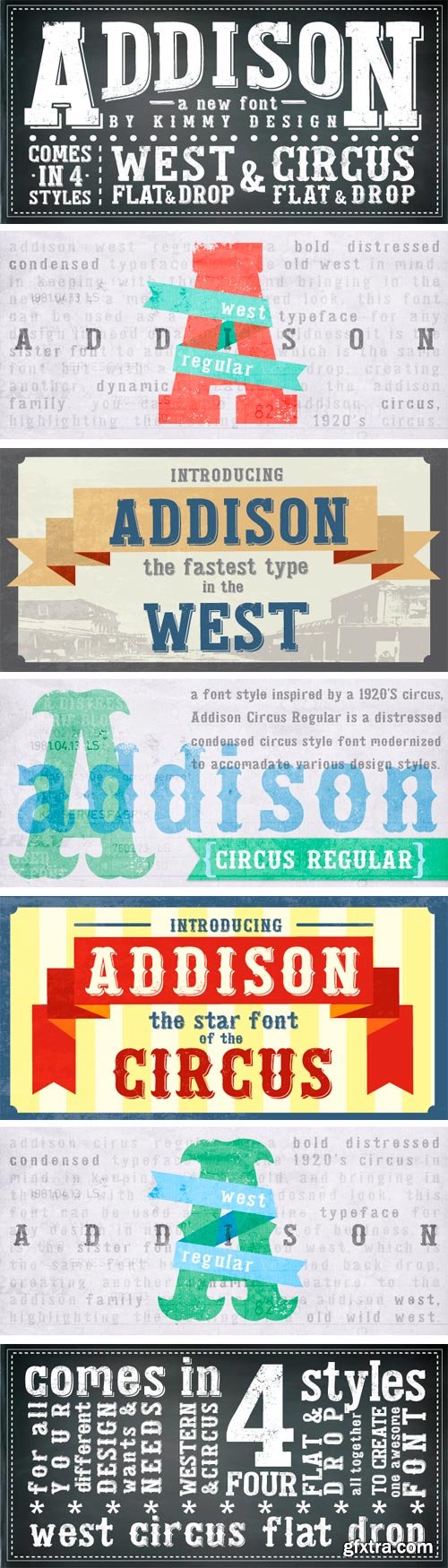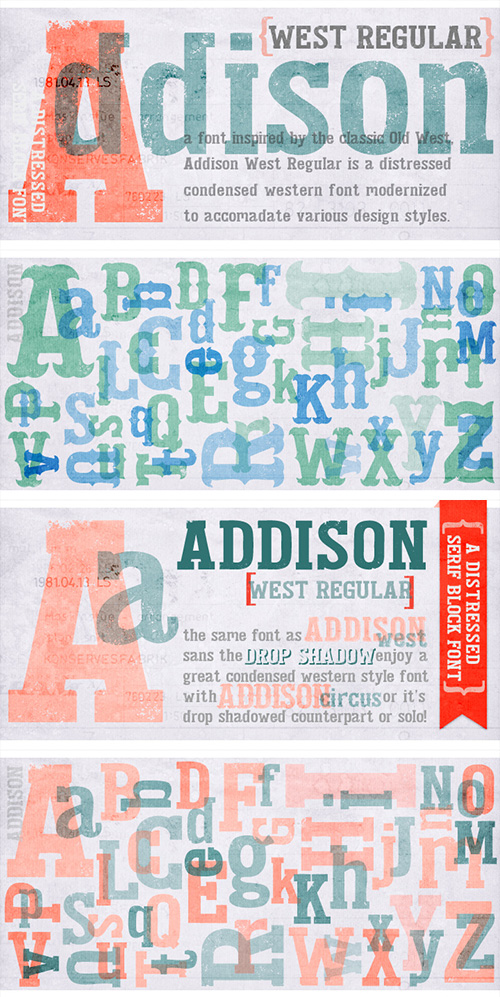
- Addison is a typeface that brings together modern western styles with a rustic texture. Between Addison West, with thick block serifs, and Circus, a more decorative face, the two would bring an authentic and unique style to any artwork. The bold faces make a stand and standout for any design concept.